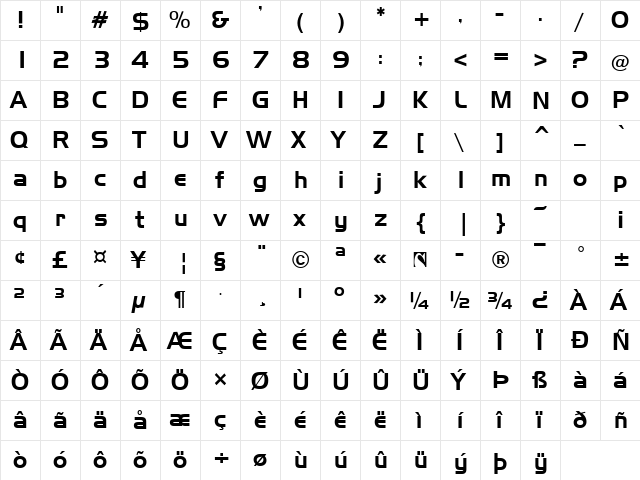
Slider Regular
Design Context for Slider Typeface
Slider takes a measured approach to typography — its balanced proportions and neutral character make it a reliable workhorse for both digital and print work.